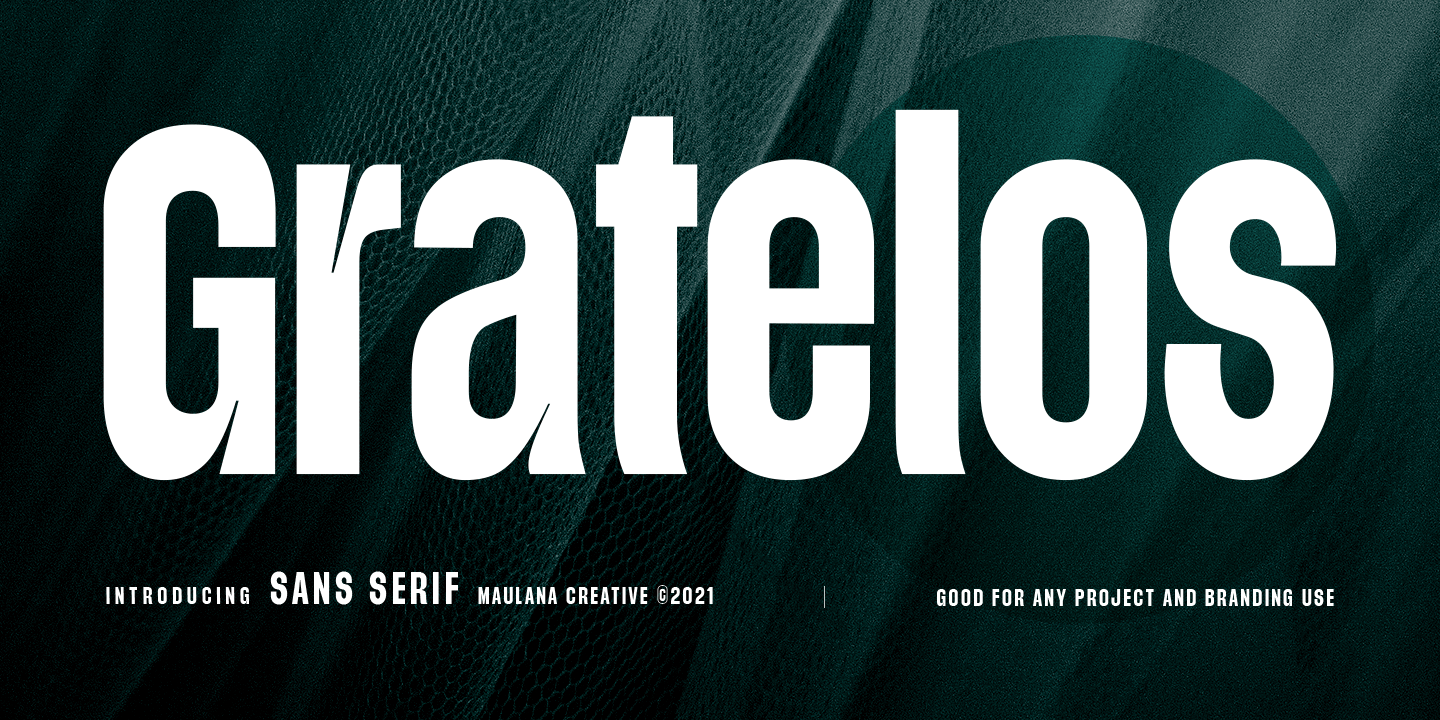
Gratelos Font is perfect for Mediterranean restaurant branding, Greek taverna signage, cultural heritage projects, ancient history exhibitions, classical architecture documentation, traditional pottery labeling, olive oil packaging, artisanal food markets, archaeological museum displays, and authentic projects that celebrate the timeless beauty and rich cultural heritage of Greek civilization with classical elegance and historical sophistication.
What makes Gratelos Font so exciting is its masterful evocation of ancient Greek elegance through carefully crafted letterforms that honor classical tradition while maintaining contemporary functionality. This typeface captures the essence of Hellenic culture and architectural beauty, featuring proportions inspired by classical inscriptions and subtle details that suggest marble columns while ensuring excellent readability for modern applications celebrating Greek heritage and Mediterranean lifestyle.
Gratelos Font family includes multiple classical variations: Regular, Bold, Light, Ancient, Classical, Heritage, Stone, and Marble versions. Each style maintains the font's inherent Greek character while offering different levels of historical authenticity and cultural appeal, enabling designers to create genuine Mediterranean aesthetics that resonate with audiences seeking connection to classical civilization and authentic Greek cultural experiences.
The cultural richness of Gratelos Font Free Download makes it exceptionally valuable for heritage tourism and Mediterranean lifestyle industries celebrating Greek culture. This font successfully communicates historical authenticity and cultural sophistication, making it perfect for brands that want to honor Greek traditions and attract audiences who appreciate classical beauty and Mediterranean heritage. Its classical character works beautifully across both digital cultural platforms and traditional print materials, while its distinctive Greek-inspired design creates immediate recognition among audiences who value ancient wisdom and timeless Mediterranean elegance.